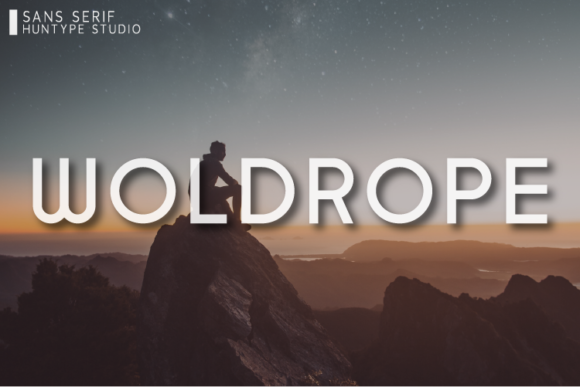
Step into the world of Woldrope Font, a remarkable sans serif creation that will redefine your design experience. This font family epitomizes elegance and sophistication while maintaining a touch of playfulness, making it an ideal choice for a wide range of projects.
With its uniform stroke width, reminiscent of hand-lettering, Woldrope Font ensures visual harmony and consistency. Its clean, minimalist lines lend a timeless quality that will elevate any design. Whether you're creating logos, branding materials, website designs, or social media graphics, Woldrope Font will add a touch of distinction and polish.
Dive into the boundless possibilities that await you with Woldrope Font. Express your creativity and make a lasting impression with this versatile font family. Let your imagination soar as you explore the endless ways to incorporate Woldrope Font into your designs.
Embrace the beauty of uniformity and discover the magic of Woldrope Font. Experience the joy of creating designs that captivate and inspire, leaving an unforgettable mark on your audience.